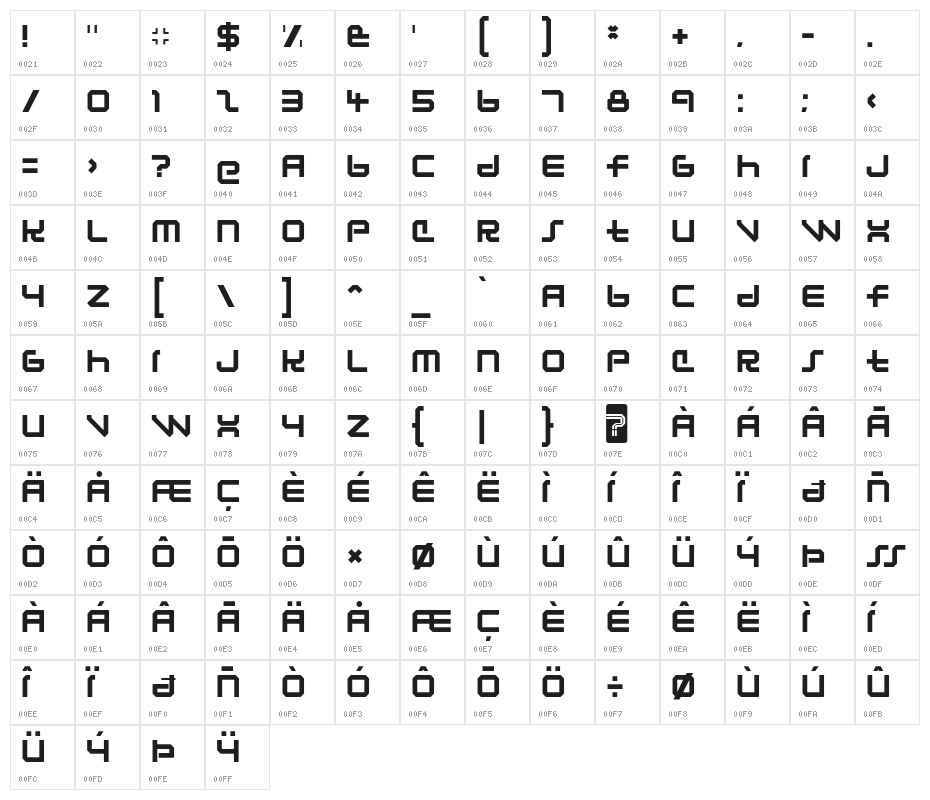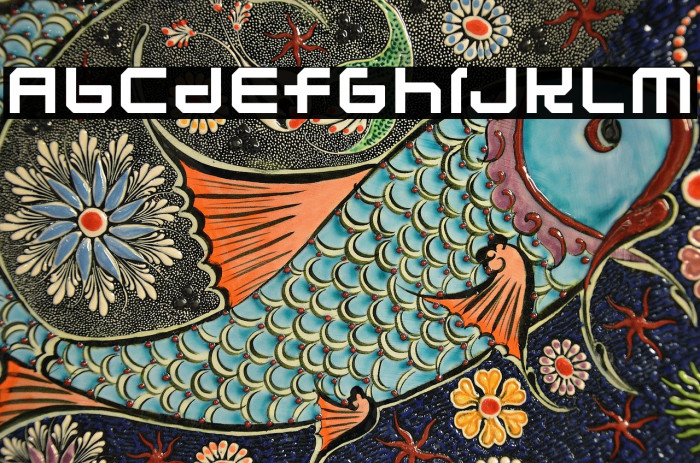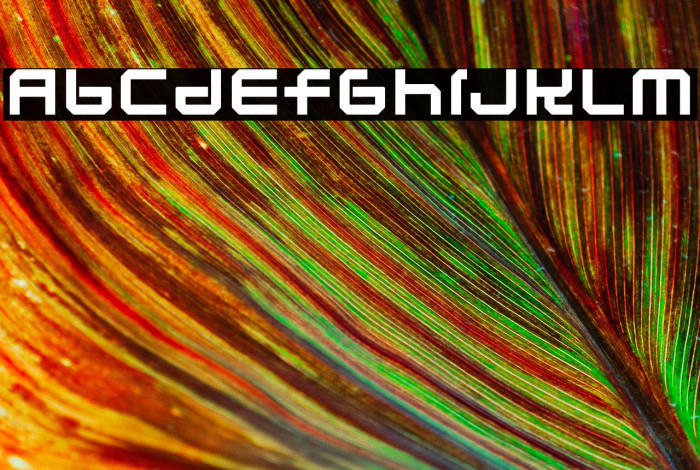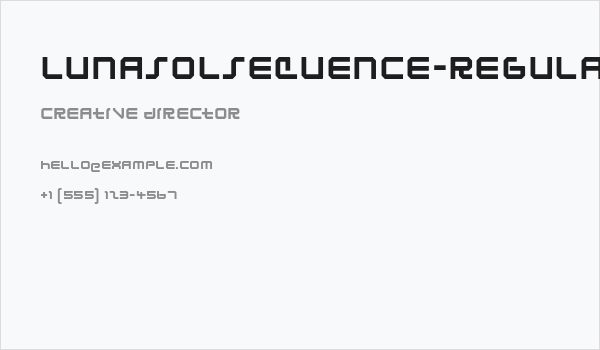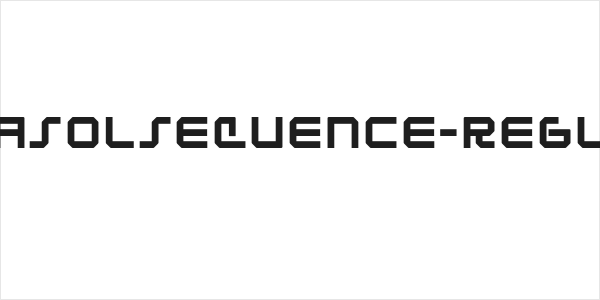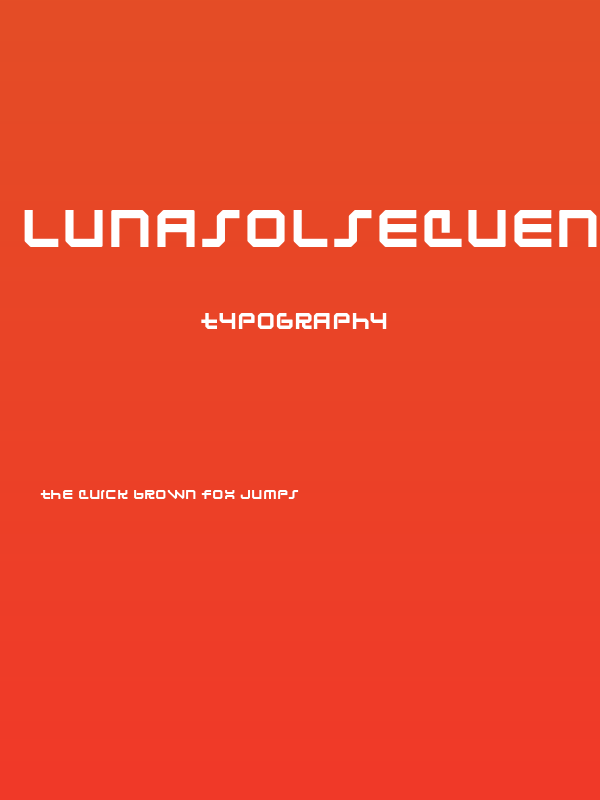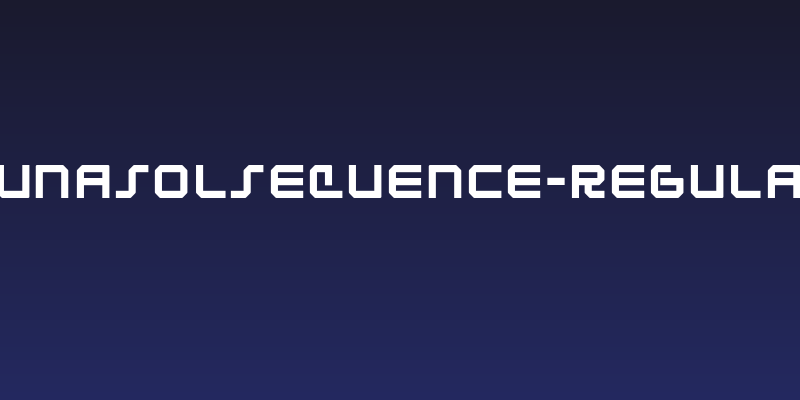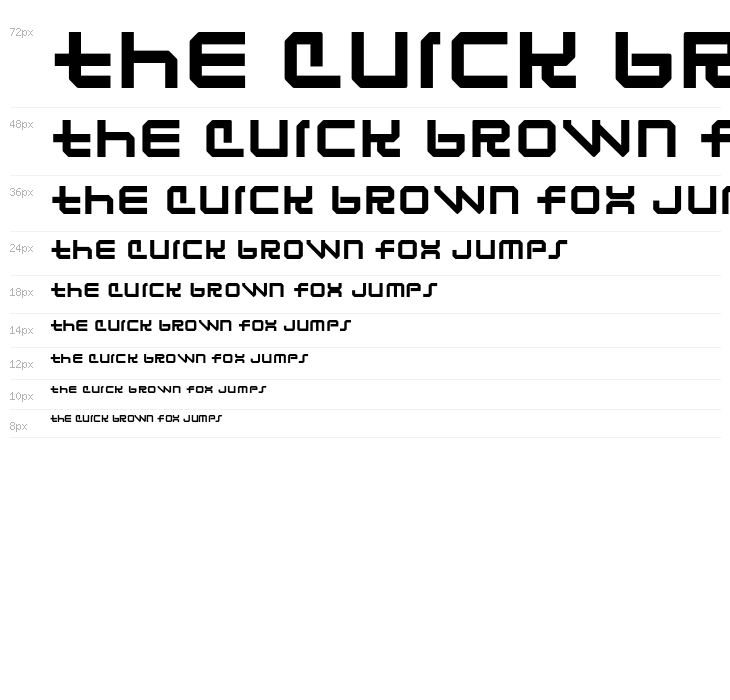
LunasolSequence-Regular Font
LunasolSequence-Regular Description
This font features a futuristic and geometric design, characterized by its angular and blocky letterforms. The characters are constructed with straight lines and sharp angles, giving it a modern and digital aesthetic. The uppercase and lowercase letters maintain a consistent style, with a uniform height and width that enhances readability. The numbers and special characters follow the same geometric pattern, ensuring a cohesive look across all elements. This font is ideal for projects that require a bold and contemporary appearance, such as technology-related branding or digital interfaces.
| Proposed Projects | Ideal for technology branding, digital interfaces, and modern design projects. |